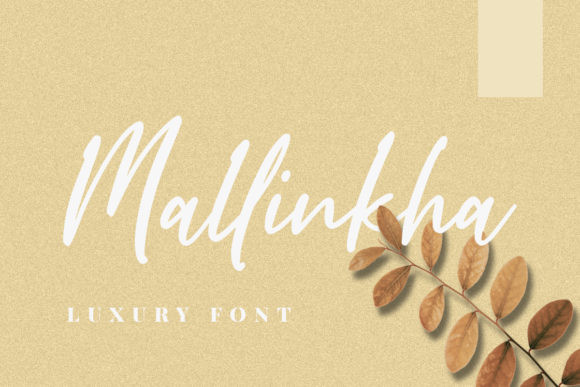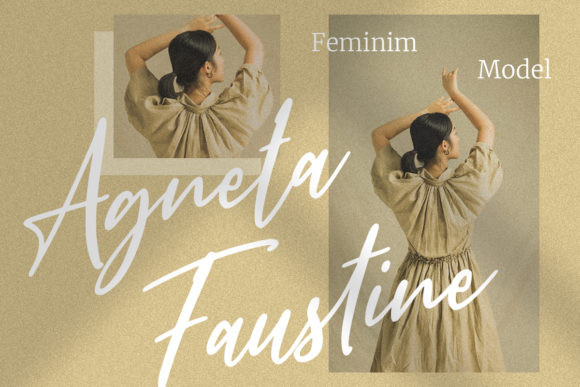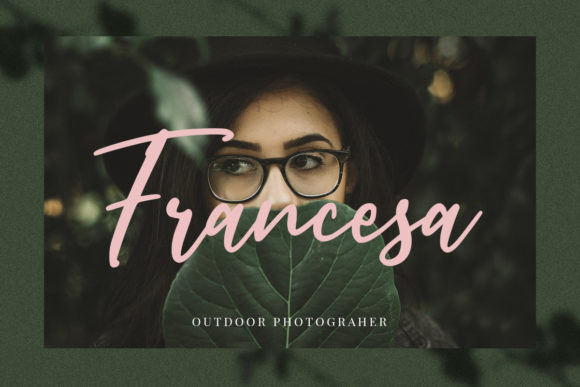
Mallinkha Font
Mallinkha simplifies elegance into one truly outstanding handwritten font. This font is the perfect fit for all of your logos, branding, social media, and crafty DIY projects.